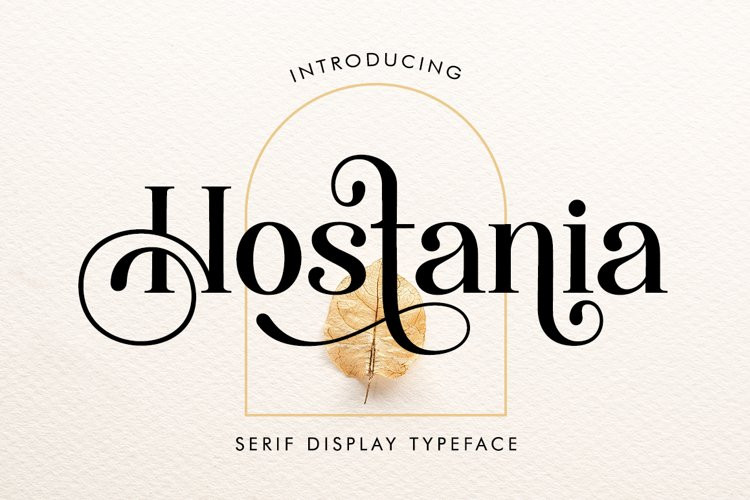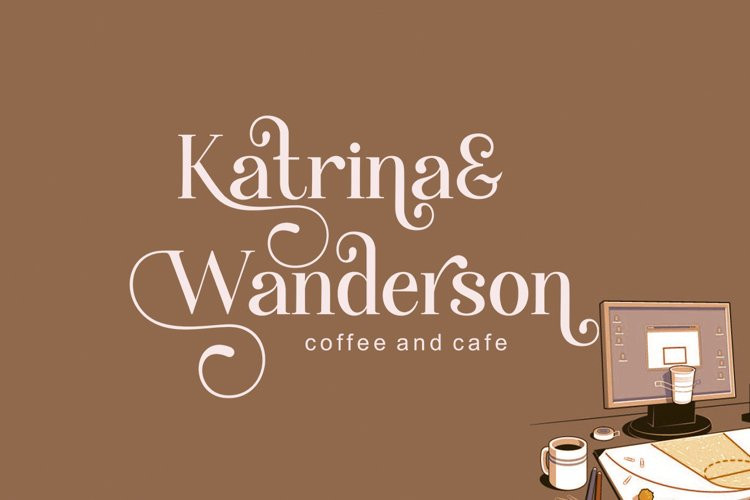
Hostania Font
Hostania FontHostania is a luxurious serif with an elegant style. It seduces your eyes with its curves yet still manages to maintain its classy serenity, it’s perfect for branding, logos, invitations, long texts, and many more of your other needs.